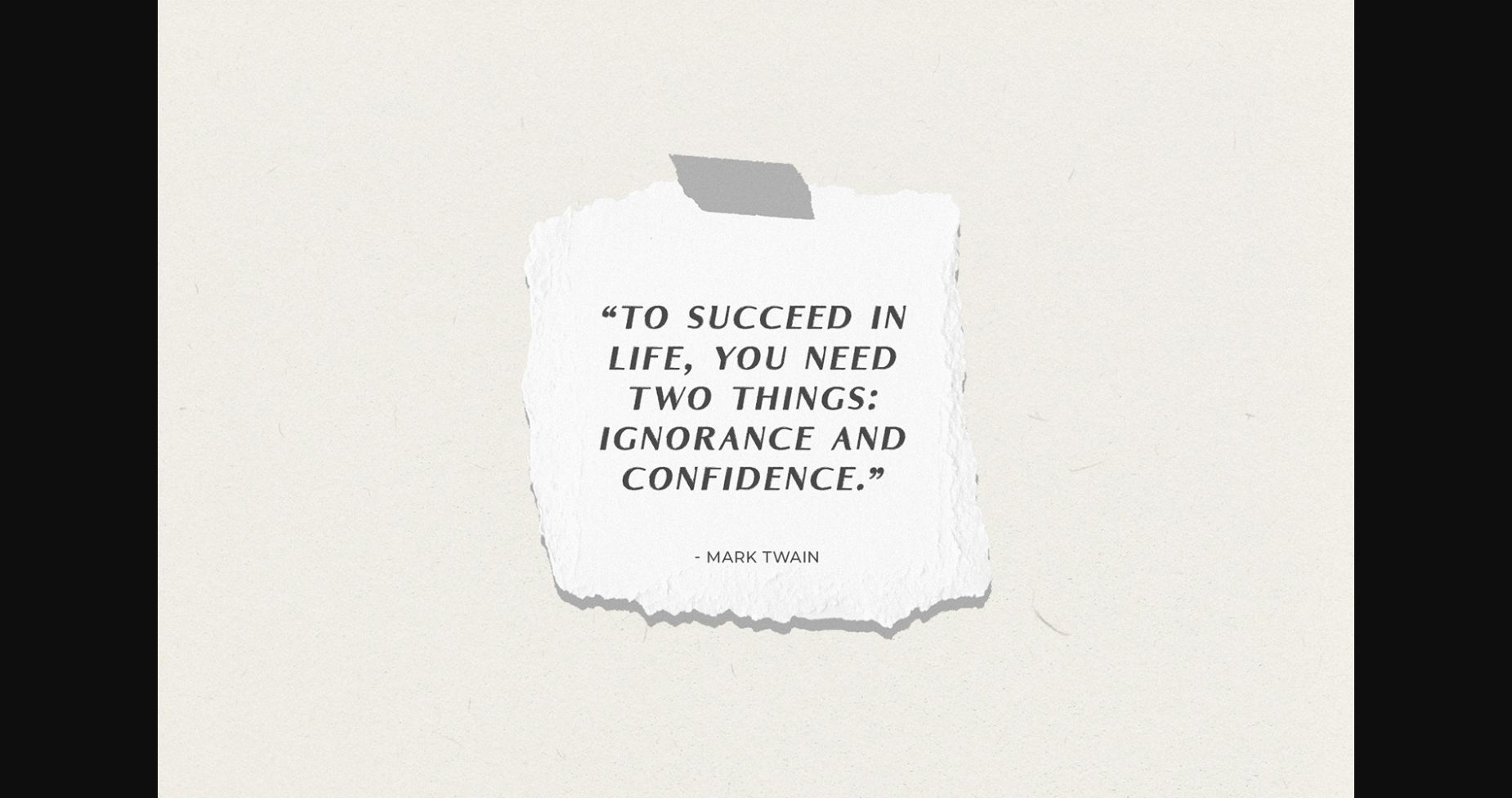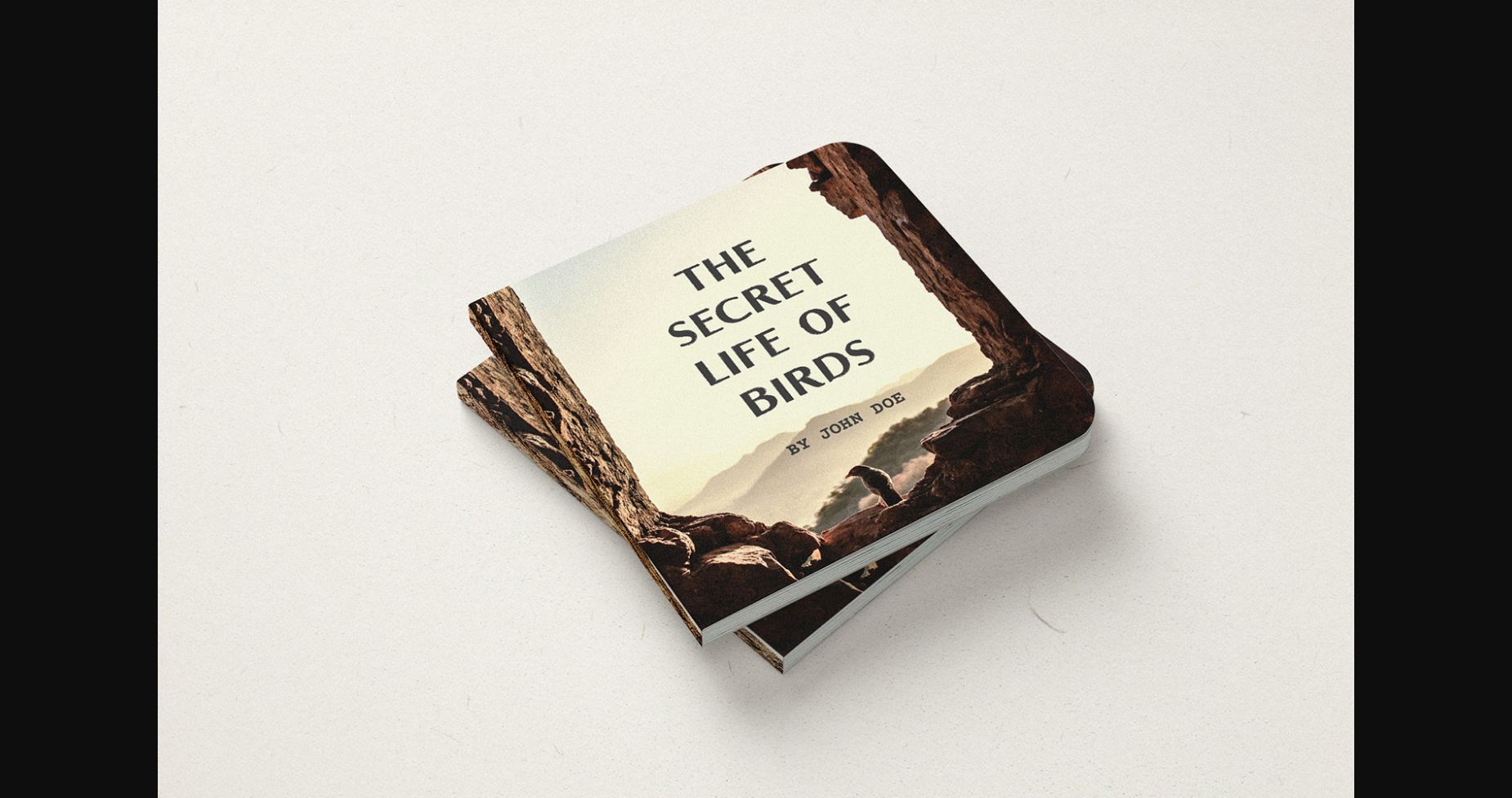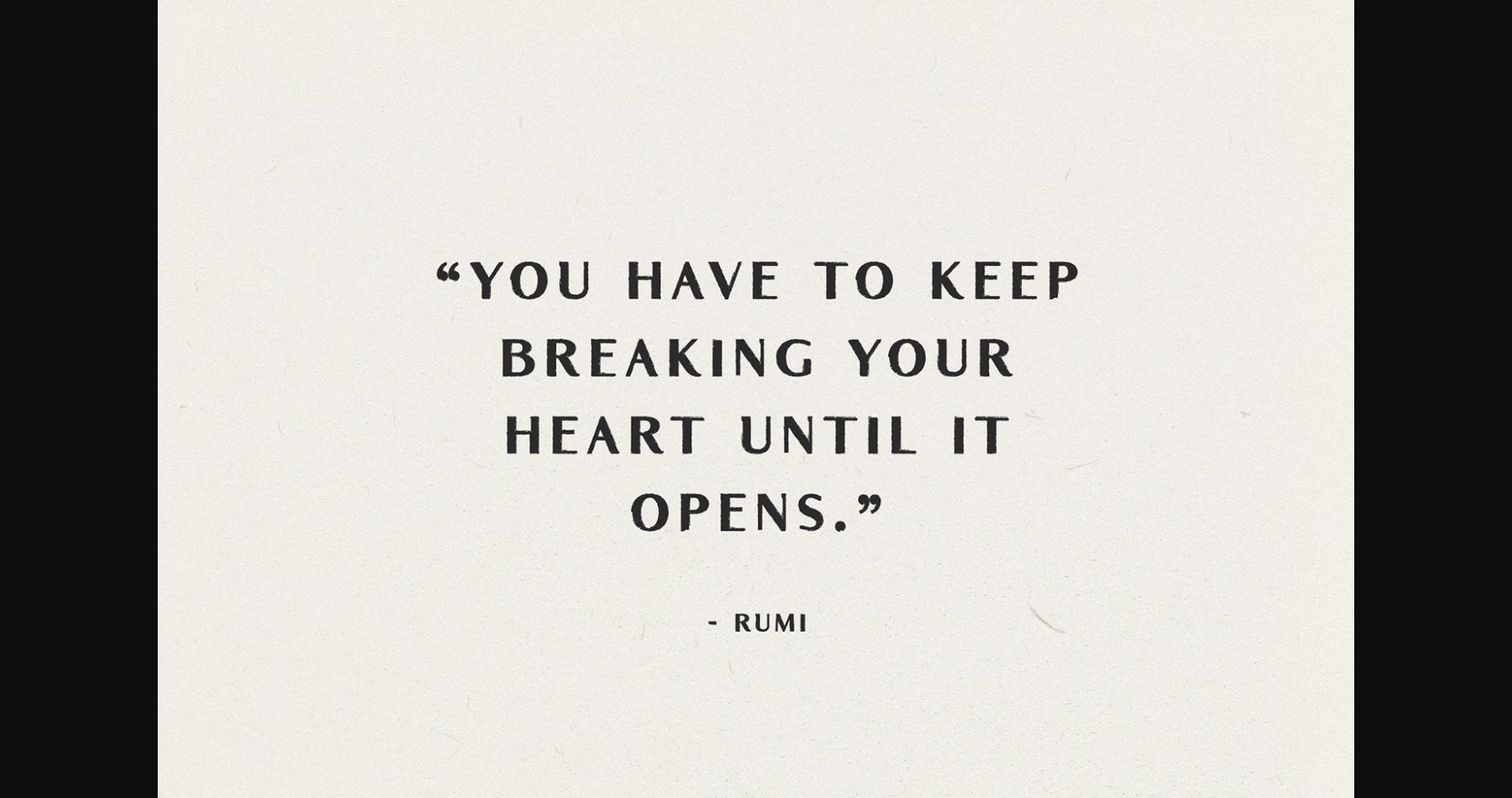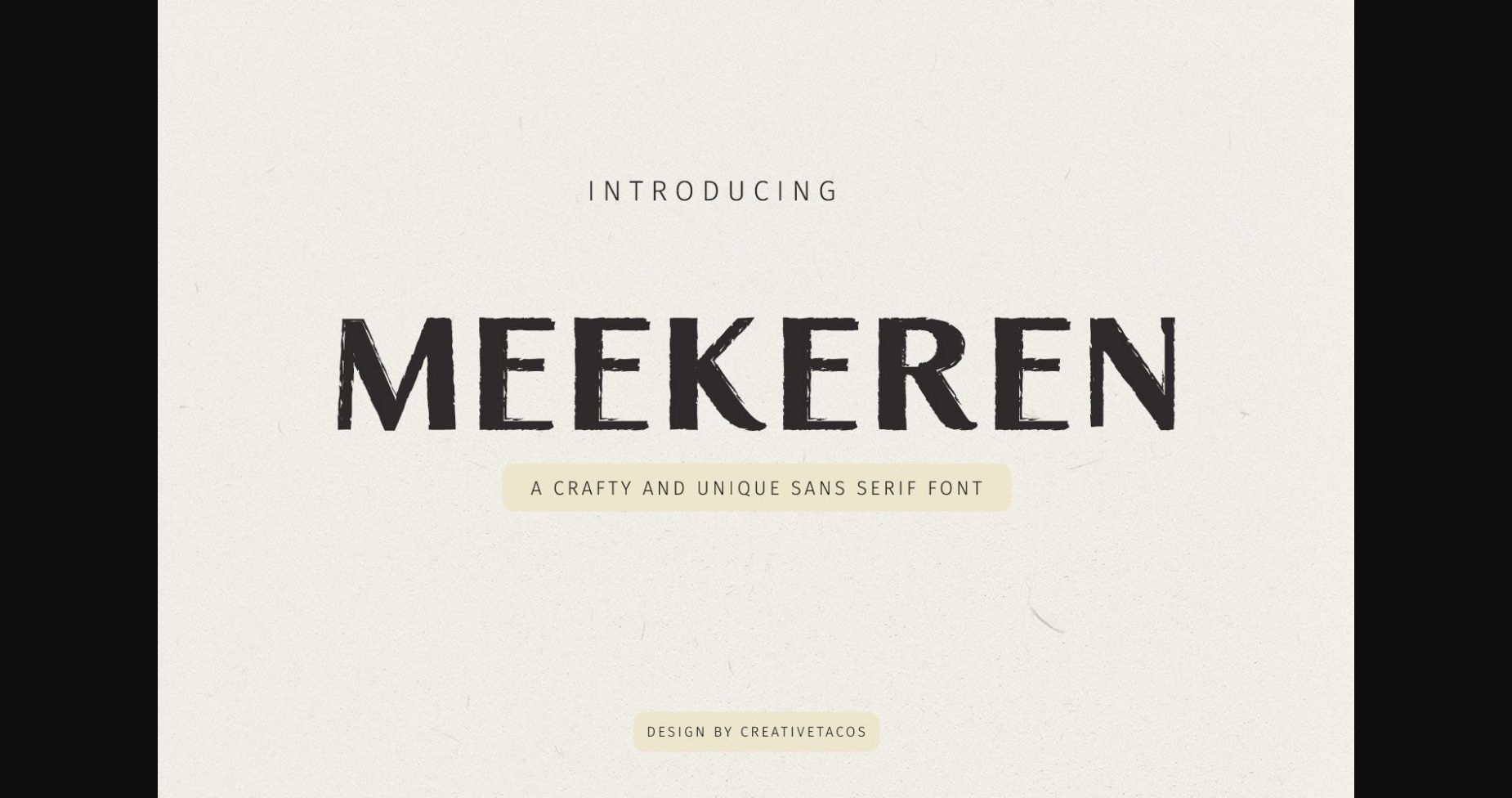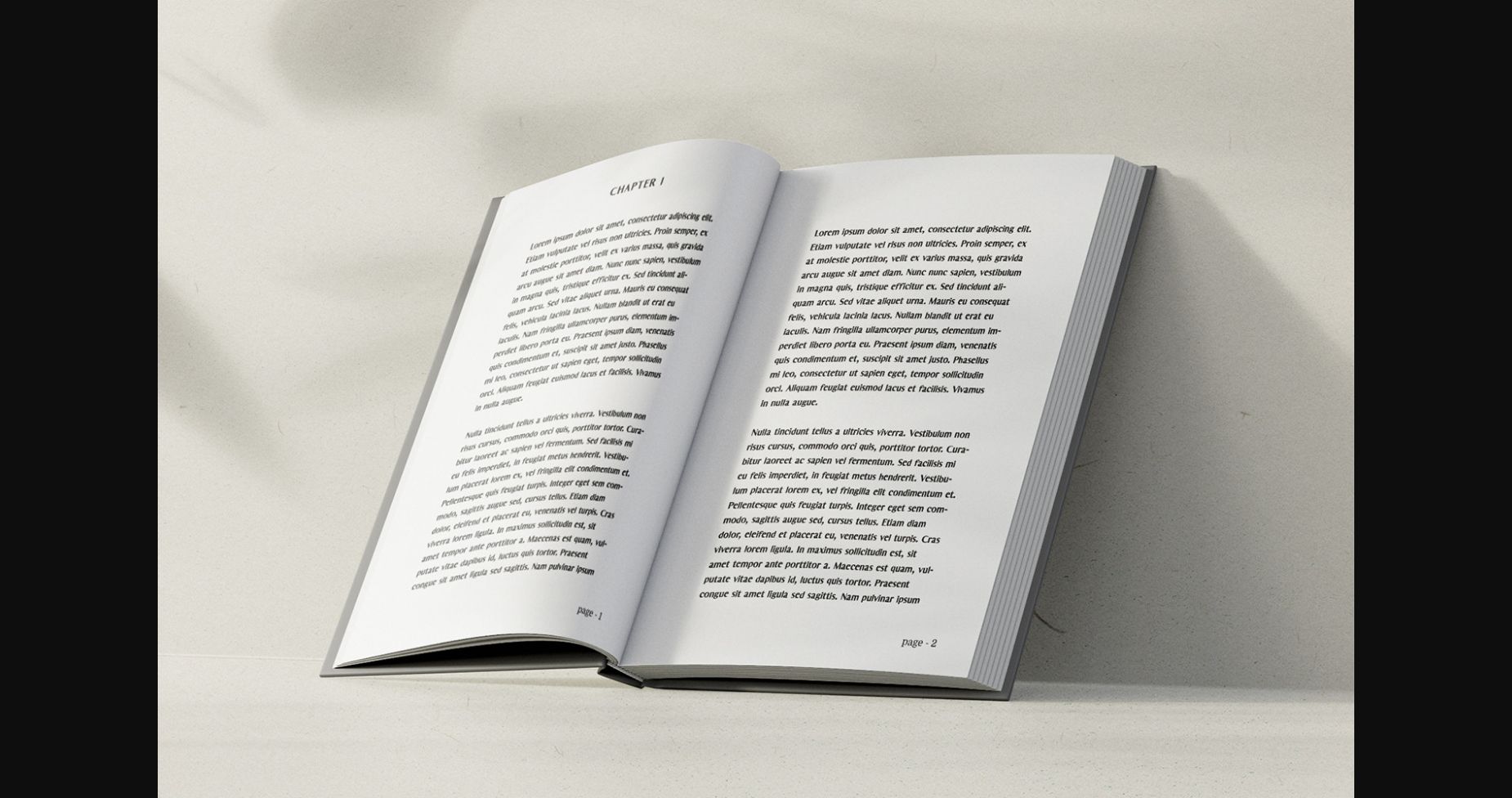
About Meekeren Font
Meekeren is a lovely, attractive, modern hand brush style font that will make you love its incredibly versatile design for future projects!
Meekeren is excellent for packaging, presentations, logos, headlines, lettering, posters, branding, quotes, titles, headings, web layouts, advertising, invitations, and almost any creative design.